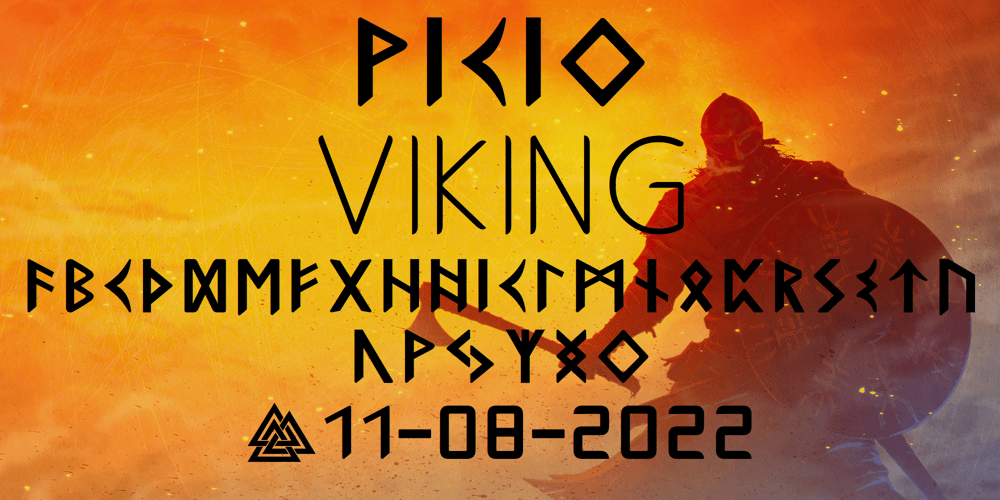
Ongunkan Radloff Viking Font Family was designed by Osman Nuri ALKAN and published by Runic World Tamgacı. Ongunkan Radloff Viking contains 1 styles and family package options. Vasili Vasilyevich Radlof or Wilhelm Radloff (Russian: Василий Васильевич Радлов; German: Wilhelm Radloff; 17 January 1837 – 12 May 1918) was a German-born Russian orientalist and founder of Turcology.Radloff is a Russian Turkologist of German origin, who researches the Turkish world from different aspects, opens a new era in the history of Turkology by bringing them to light, and has devoted 60 years of his 81-year long life to these studies.In his work known as Radloff Atlas, it was published with a runic font that he developed specifically for the Old Turkish Runic Alphabet. I made the Turkish Runic Font using Radloff’s Atlas. I developed this viking font based on this font and adapted it to Viking writing. I will adapt other runic versions when I have the opportunity.